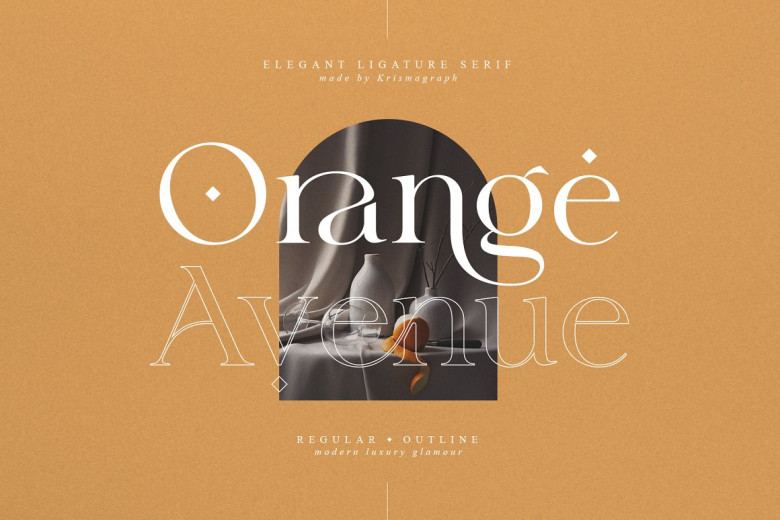
Orange Avenue Font
Orange Avenue is an exquisite Ligature Serif Font. It features soft curves with high contrast glyphs for an appealing feminine and masculine appearance. There are two variants of this font, Regular Outline.
Both come equipped with amazing ligatures as well as alternates, making this font suitable for layout designs for body copy or quotes as well as headings, logos, branding magazines product packaging invitations.
Orange Avenue Serif Font